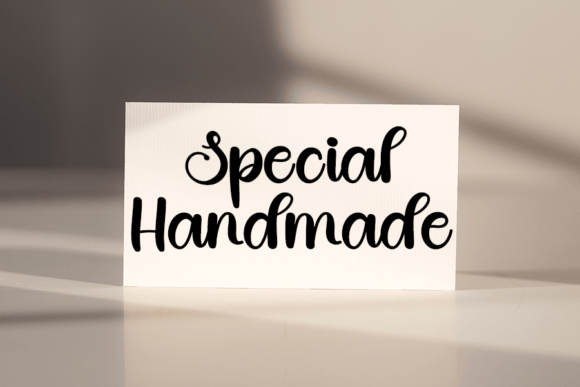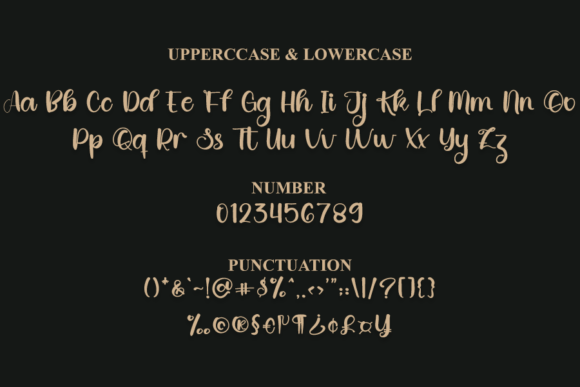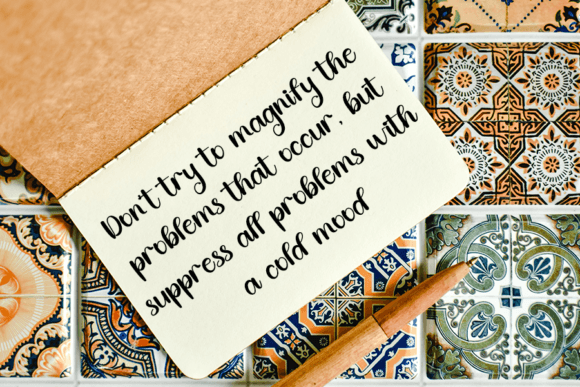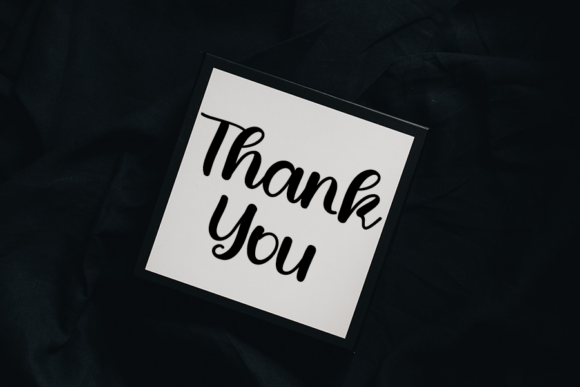
Introduction to Single Font
Have you ever been stuck on a creative project, struggling to find the perfect font to convey the essence of your vision? For designers, finding that one perfect font can be the difference between a mediocre design and a masterpiece. It’s that moment of clarity when everything falls into place, and the words flow effortlessly onto the page.
Enter Single Font, a beautiful and refined script font that’s about to become your new go-to design resource. With its classy, elegant, and modern look, Single Font is perfect for logos, branding, invitations, stationery, wedding designs, social media posts, and much more. Whether you’re working on a high-quality project or just need a simple design solution, Single Font is a valuable addition to your design toolkit.
- Unique, handcrafted design that adds a touch of elegance to any project.
- Single font package includes 100+ glyphs, including letters, numbers, and symbols.
Honest Review: Single Font
I recently stumbled upon Single Font, a supposedly high-quality font download that caught my attention. Upon closer inspection, I must say that I’m impressed with the overall quality of the font. ✨ The crisp lines, smooth curves, and clear typography make it a great addition to any design project.
- High-quality typography
- Transparent background for easy design integration
- Great for creative projects, including graphics, logos, and more
- Only one font style is available, which may limit its versatility
- No additional font weights or variations are provided
Overall, I’m quite pleased with Single Font. While it may not be the most comprehensive font download, its high quality and transparent background make it a solid addition to any design resource. ✨
When using Single Font, consider the following tips: use it on a transparent background to achieve a seamless integration with your design, and experiment with different blending modes to achieve unique effects. Common use cases for Single Font include creating a logo, designing a brochure, or developing a branding identity for a business or product.